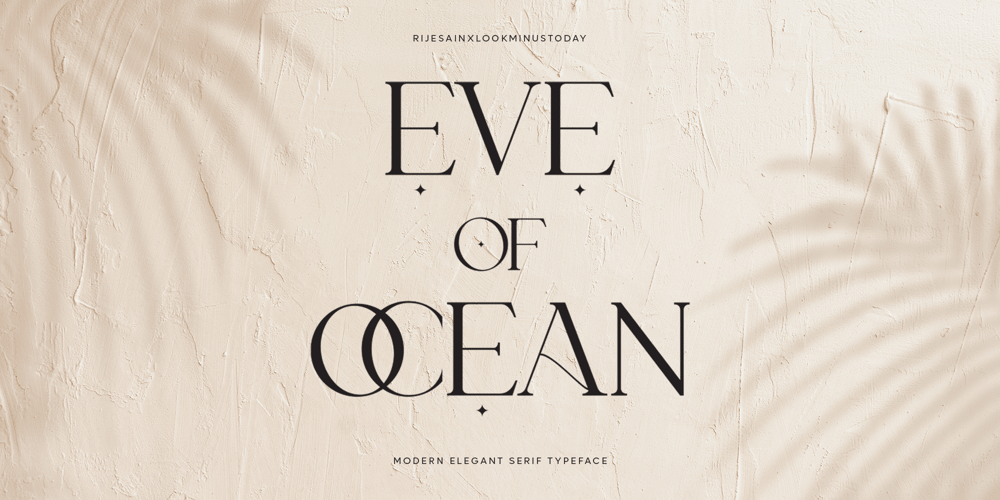
Eve Of Ocean Font Family was designed by Arif Rijal and published by Look Minus Today. Eve Of Ocean contains 1 styles and family package options. Introducing Eve Of Ocean – Modern elegant serif typeface by Rijesain x Look minus todayEve Of Ocean is an elegant and modern impression, this serif font will add an attractive and professional look to any design project you use it for. It features a harmonious balance of firmness and grace, making it suitable for a range of design projects such as wedding invitations, fashion magazines, and promotional posters. Eve of Ocean is a great choice for designers who want to add a touch of luxury and style to their work. Its readability and accessibility make it perfect for both print and digital designs.Features:- Lowercase and Uppercase- Beautiful Alternates & Ligatures- Numerals & Punctuation- Multilingual & SymbolHOW TO ACCESS ALTERNATE CHARACTERSOpen glyphs panel:In Adobe Illustrator go to Window – Type – glyphsIn Adobe Photoshop go to Window – glyphsContact me with an inbox message If you have any question.Thank you and have a nice day !